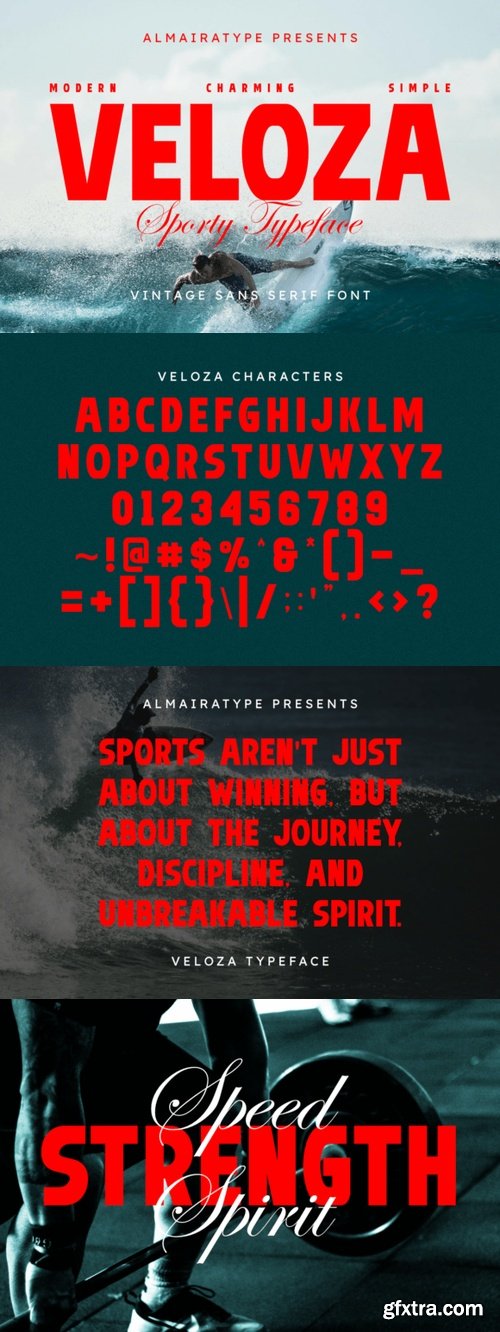
Veloza Font
- Veloza is a bold vintage sans serif font that blends retro charm with a modern touch, making it perfect for standout branding and creative projects. With its clean lines and strong presence, this font is ideal for posters, logos, branding, headlines, merchandise, and product promotions.